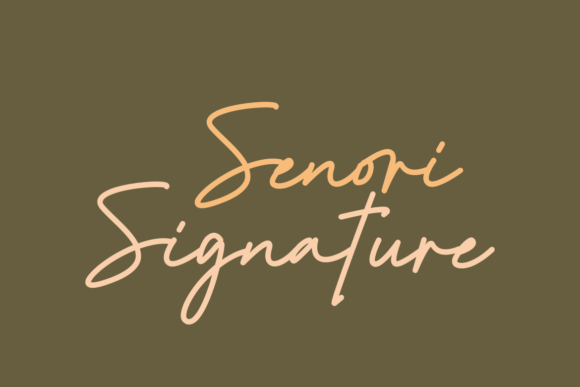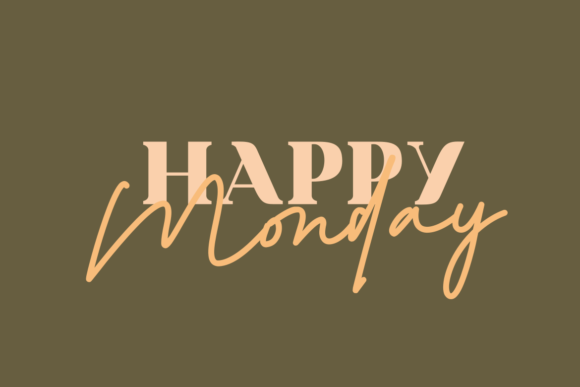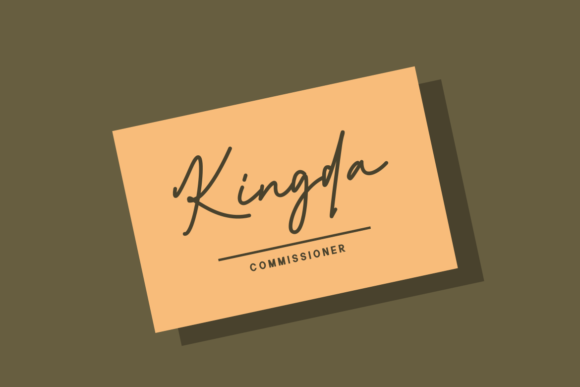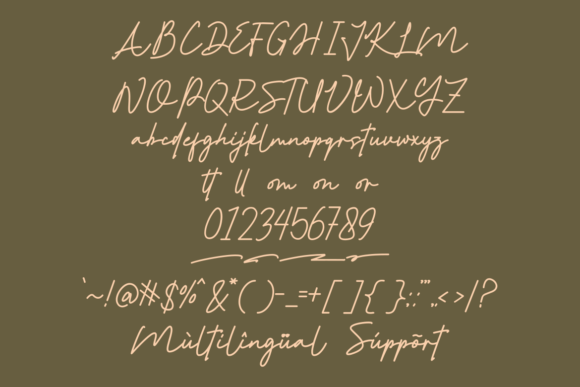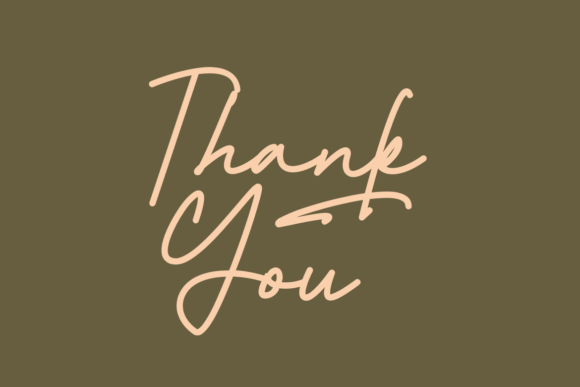
Introduction to Andhira Font
Andhra is a monoline script font that comes with style and character.
A great font to use in many ways for your latest project Perfect for logos & branding, photography, invitations, watermarks, advertising, product design, stationery, wedding designs, labels, product packaging, special events, or anything else that requires script content.
Key Features of Andhira Font